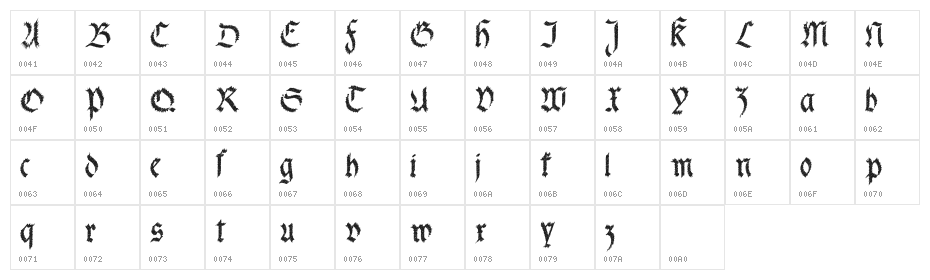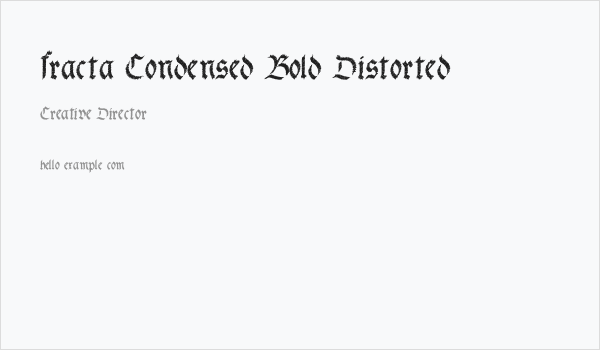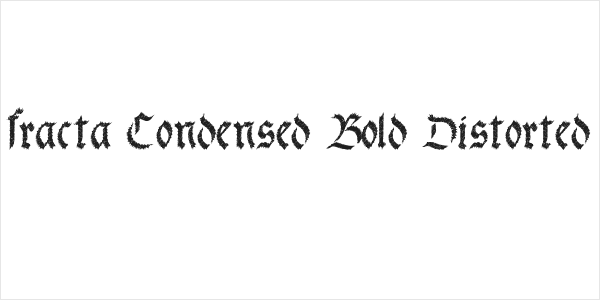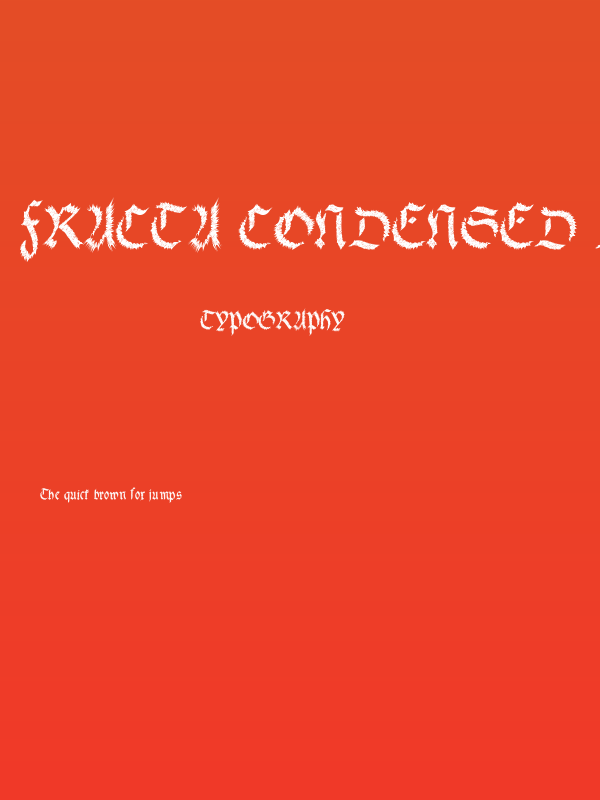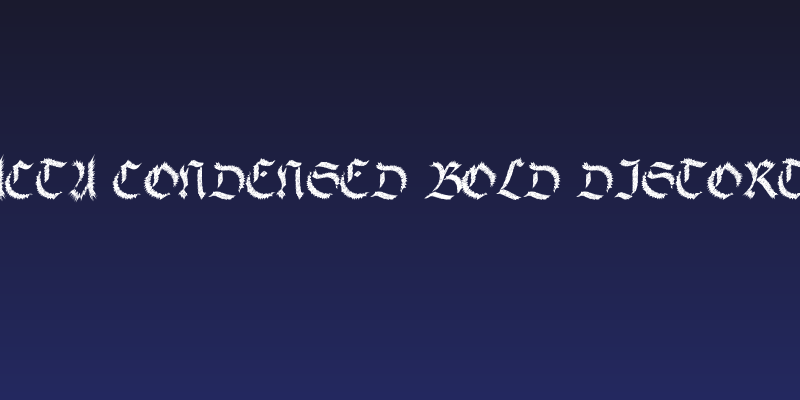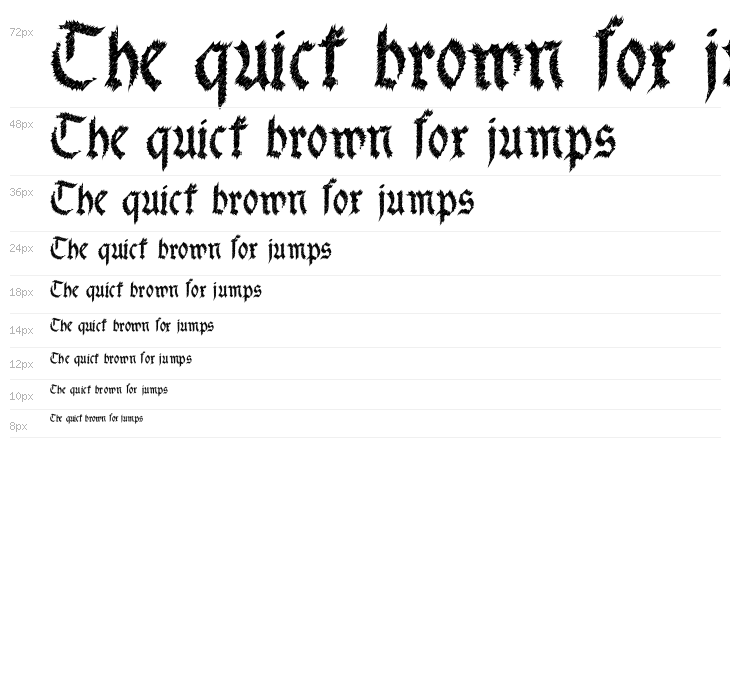
fracta Condensed Bold Distorted Font
fracta Condensed Bold Distorted Description
This font features a bold and condensed style with a highly decorative and distorted appearance. The characters are designed with a jagged, thorn-like texture that gives them a unique and edgy look. The uppercase and lowercase letters maintain a consistent style, with sharp angles and intricate detailing that suggest a sense of movement and energy. The overall design is reminiscent of traditional blackletter fonts but with a modern twist, making it suitable for projects that require a dramatic and eye-catching typeface.
| Use Case | Logos, Headlines |
| Proposed Projects | Ideal for album covers, posters, and branding projects that aim to convey a sense of edginess and uniqueness. |